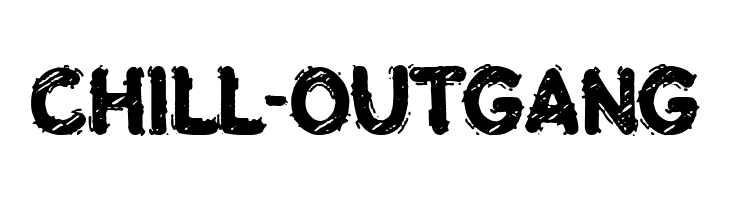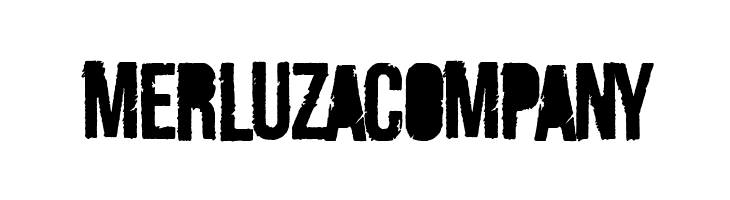
A futuristic and geometric font with bold, interconnected lines and intricate details.
An elegant, high-contrast script font with flowing, cursive letters.
An elegant, flowing script font with graceful curves and decorative swashes.
A playful, bold handwritten font with rounded, irregular strokes.
A bold, expressive script font with interconnected, flowing characters.
A bold, playful font with rounded, bubbly characters ideal for creative projects.
A playful, bold font with rounded edges and a bubbly appearance.
A bold, expressive script font with a handwritten style.
An elegant and sophisticated cursive font with decorative uppercase letters.
A bold, textured font with a playful, chalk-like appearance.
A bold, flowing script font with dynamic curves and a vintage-modern aesthetic.
A bold, distressed font with a rugged, grunge texture.
A playful handwritten font with smooth, fluid strokes and a casual style.
A bold, brush-style font with a hand-drawn, energetic appearance.
A bold, hand-painted font with an artistic and playful style.
A playful, handwritten-style font with tall, narrow letters and rounded edges.
A casual, handwritten font with a playful and informal style.
A playful, hand-drawn font with tall, narrow characters and a whimsical style.
A modern, cursive font with elegant curves and consistent stroke width.
A playful and elegant script font with flowing, cursive letterforms.
A playful, handwritten-style font with rounded, irregular strokes.
A classic serif font with elegant strokes and refined serifs.
A bold, flowing script font with elegant, cursive letterforms.
An elegant script font with flowing, cursive letters and ornate flourishes.
A bold, expressive script font with flowing, cursive letters and elegant style.
An elegant script font with flowing, interconnected characters and refined swashes.
An elegant and flowing script font with a handwritten appearance.
A stylish and elegant script font with flowing, connected letterforms.
A bold, slanted font with a dynamic and energetic style.
A graceful script font with flowing, elongated strokes and elegant curves.